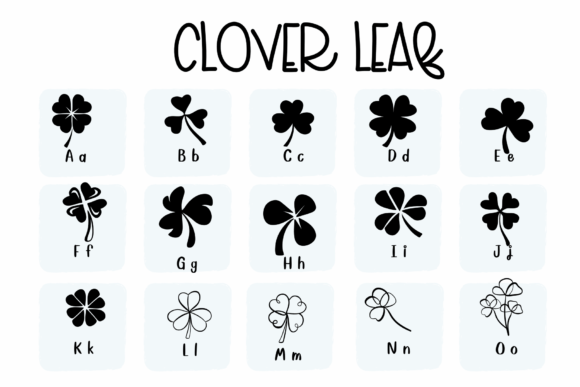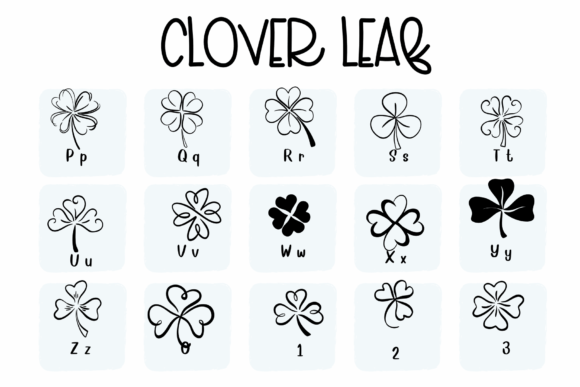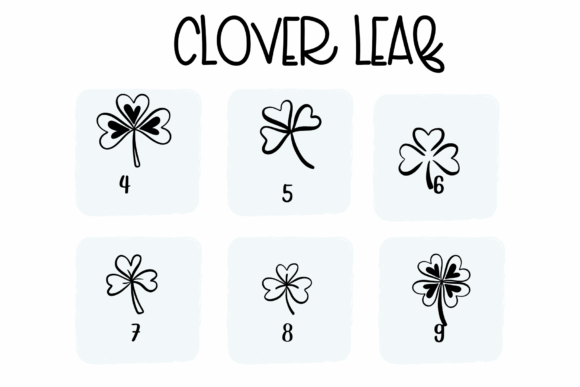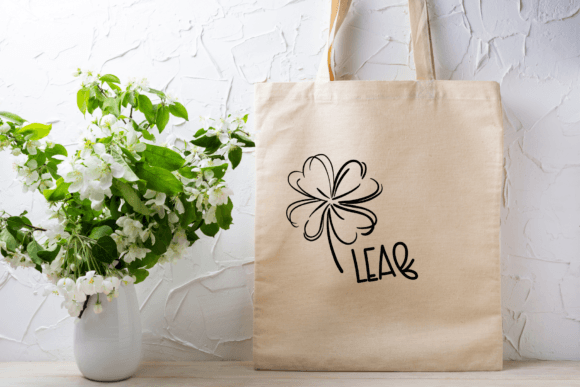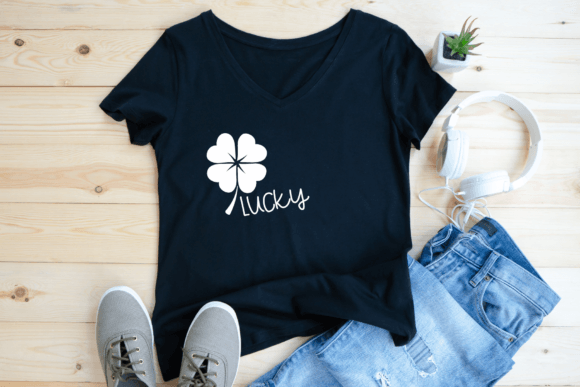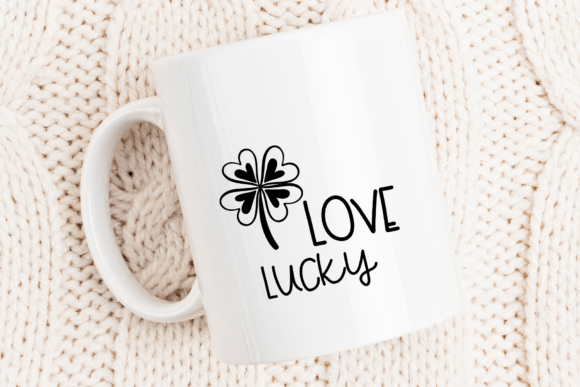
Clover Leaf Font: Elevate Your Creative Projects with a Touch of Whimsy
Are you a designer, crafter, or DIY enthusiast looking for a unique and charming font to add a personal touch to your projects? Look no further than the Clover Leaf Font, a delightful dingbat font that brings a fresh and playful vibe to your creative endeavors. In this article, we’ll dive into the world of Clover Leaf Font, exploring its features, uses, and benefits, as well as provide tips and inspiration for incorporating it into your work.
What is Clover Leaf Font?
Clover Leaf Font is a dingbat font that features a charming clover theme in a sketch style. The font is designed to resemble hand-drawn illustrations, giving it a warm and organic feel that’s perfect for a wide range of creative projects. With its delicate lines and whimsical charm, Clover Leaf Font is sure to capture the hearts of designers, crafters, and DIY enthusiasts alike.
Features and Benefits of Clover Leaf Font
So, what makes Clover Leaf Font so special? Here are just a few of its key features and benefits:
- Unique and eye-catching design: Clover Leaf Font boasts a distinctive and charming design that’s sure to set your projects apart from the crowd.
- Versatile and adaptable: This font can be used for a wide range of creative projects, from wedding invitations and DIY crafts to logos and decorations.
- Scalable and flexible: Whether you need to use the font for a small project or a large-scale design, Clover Leaf Font can be scaled up or down without losing its charm or integrity.
Uses for Clover Leaf Font
So, what can you do with Clover Leaf Font? The possibilities are endless! Here are just a few ideas to get you started:
- Wedding invitations and stationery: Add a touch of romance and whimsy to your wedding invitations, save-the-dates, and other stationery with Clover Leaf Font.
- DIY crafts and decorations: Use Clover Leaf Font to create custom signs, banners, and decorations for your next DIY project.
- Logos and branding: Give your business or brand a unique and memorable identity with Clover Leaf Font.
- Paper crafts and scrapbooking: Add a personal touch to your paper crafts and scrapbooking projects with Clover Leaf Font.
Tips for Using Clover Leaf Font
To get the most out of Clover Leaf Font, here are a few tips to keep in mind:
- Experiment with different sizes and colors: Don’t be afraid to play around with different sizes and colors to find the perfect combination for your project.
- Pair with complementary fonts: Combine Clover Leaf Font with other fonts to create a unique and visually appealing design.
- Use it sparingly: While Clover Leaf Font is certainly eye-catching, it can be overwhelming if overused. Use it sparingly to create a sense of balance and harmony in your design.
Still looking for inspiration? Here are a few ideas to get you started:
- Create a custom wedding invitation suite: Use Clover Leaf Font to create a beautiful and cohesive wedding invitation suite that sets the tone for your special day.
- Design a DIY craft project: Use Clover Leaf Font to create custom signs, banners, and decorations for your next DIY project.
- Develop a brand identity: Use Clover Leaf Font to create a unique and memorable logo and branding for your business or organization.